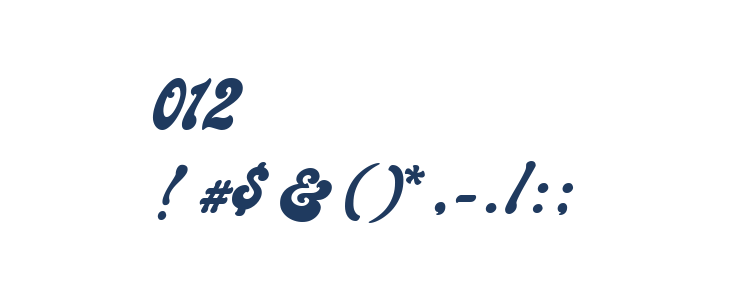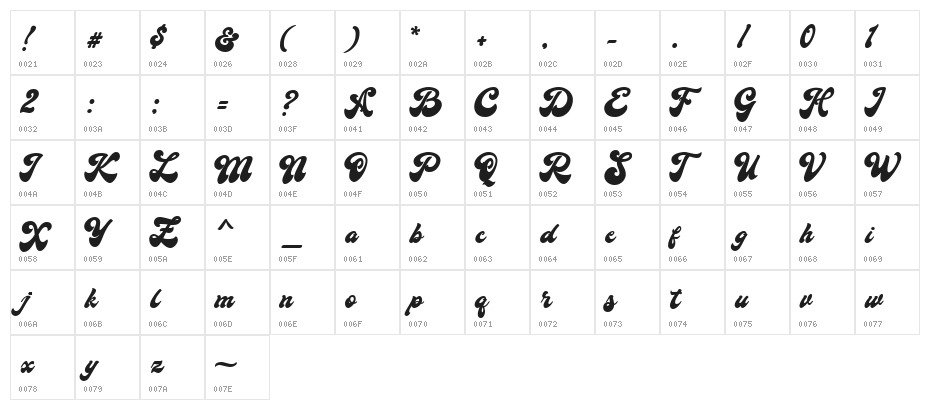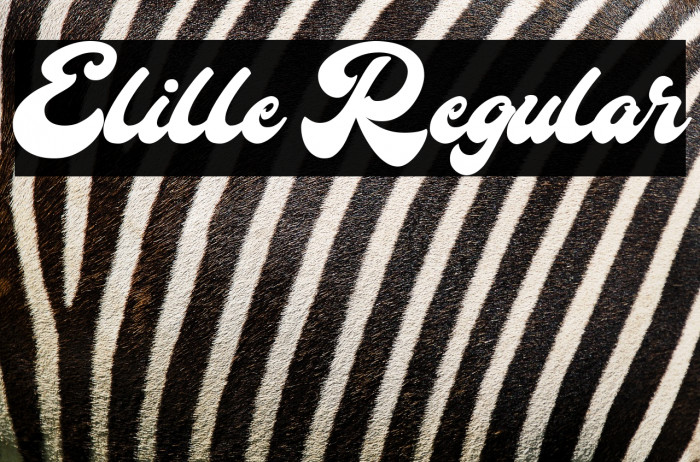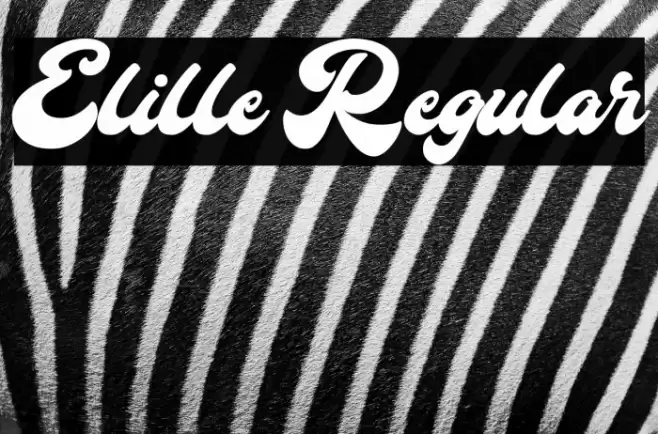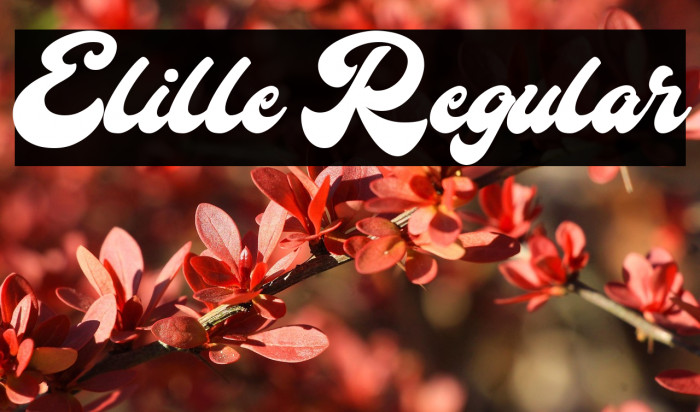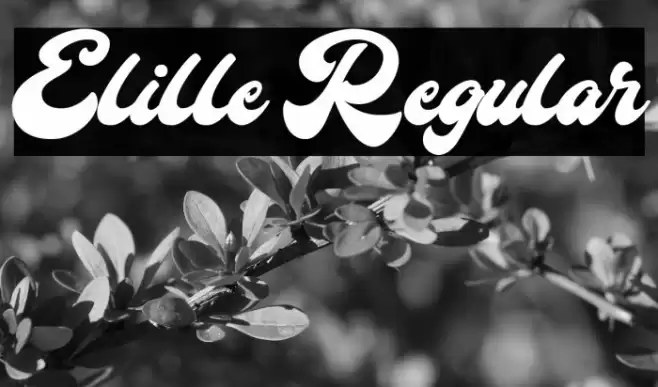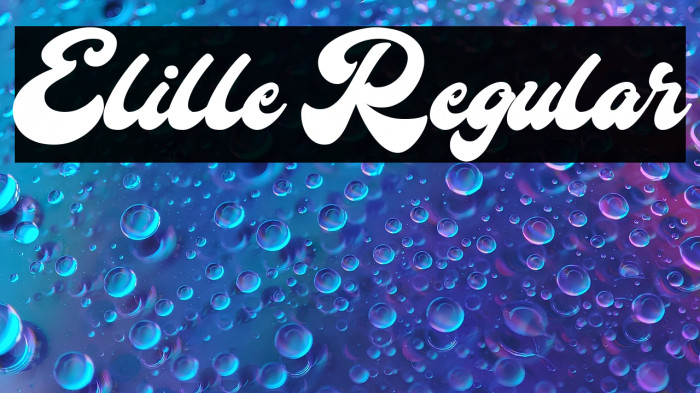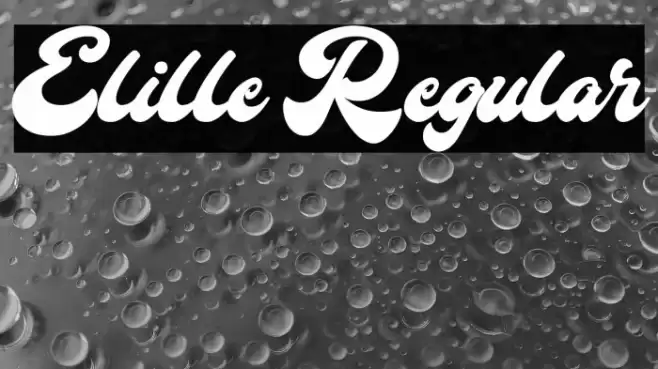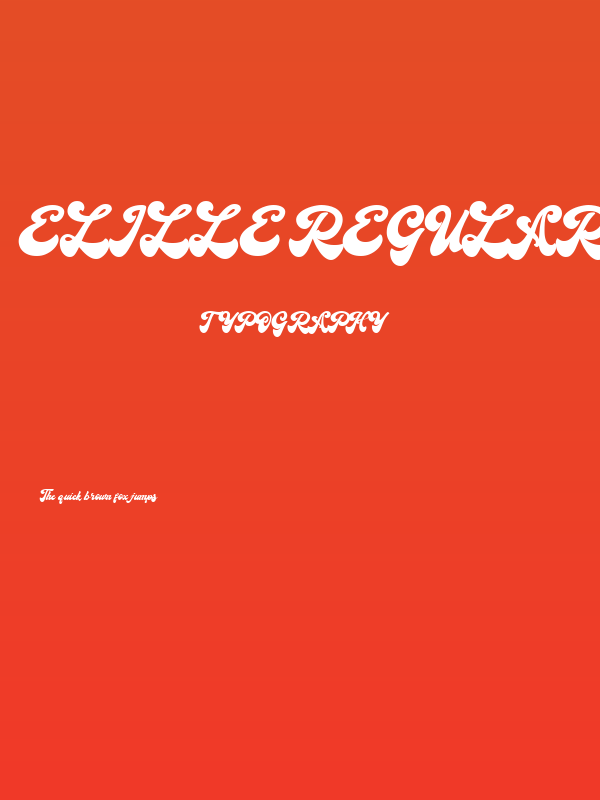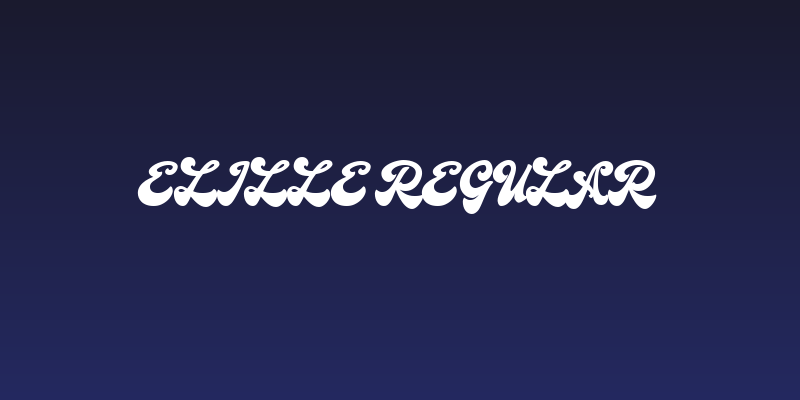
Elille Regular Font
Elille Regular Description
This font features a bold and flowing script style with a distinctly decorative flair. The characters are interconnected, giving a sense of fluidity and elegance. The uppercase letters are ornate, with sweeping curves and flourishes, while the lowercase letters maintain a consistent style, enhancing readability. The numbers and special characters are designed to match the overall aesthetic, ensuring a cohesive look. This font is ideal for projects that require a touch of sophistication and artistic expression.
| Use Case | Logos, Invitations, Decorative Text |
| Proposed Projects | Ideal for wedding invitations, greeting cards, logo design, and branding materials that require a sophisticated and artistic touch. |